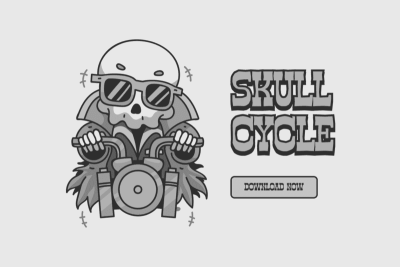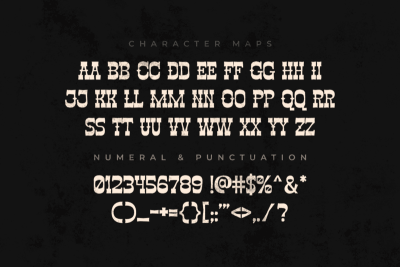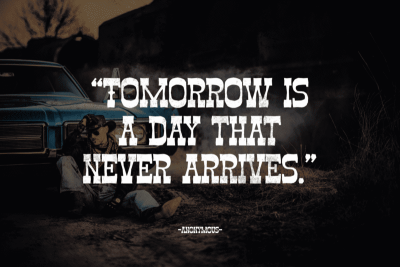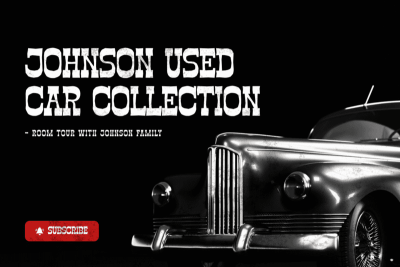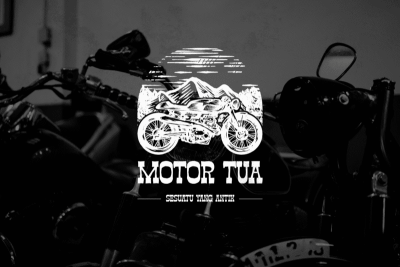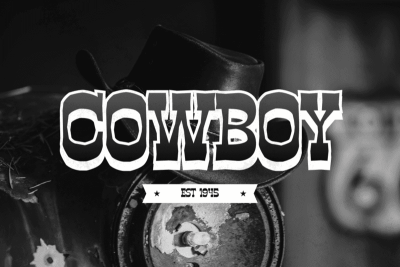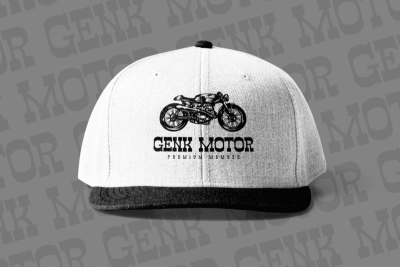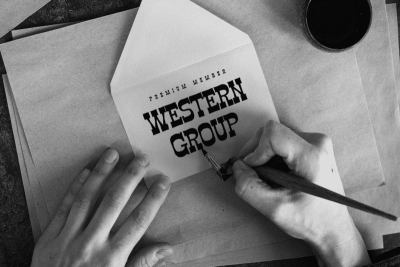
Retro Font The Django
The Django
Retro Font The Django is a modern font with a strong vintage influence. Inspired by the typography of the 1950s and 1960s, it perfectly blends nostalgic elements with contemporary design features. The font has clean lines, rounded serifs, and slightly condensed letterforms, making it versatile for various applications. Whether used for bold headlines or body text, Retro Font The Django brings a sense of elegance and personality to your designs.
This font captures the charm of mid-century typography while remaining fresh and modern. The rounded edges and sleek structure create a balanced and harmonious aesthetic. The font is works well in both print and digital environments, giving you flexibility across different media. Itโ€™s ideal for creating standout designs that need to evoke a sense of both style and fun.
The font is perfect for a range of design projects. Itโ€™s suitable for posters, branding, website headers, social media graphics, and more. Whether youโ€™re working on a retro-themed campaign or a modern project with a touch of nostalgia, Retro Font The Django offers the right mix of classic and contemporary style. Its versatility makes it an excellent choice for designers who want a font that can handle a variety of applications while maintaining a memorable visual impact.
Who is Retro Font The Django Ideal For?
Retro Font The Django is ideal for creative professionals who want to add character to their designs. Graphic designers, brand creators, and marketers can use this font to make their projects stand out. Itโ€™s particularly well-suited for industries like entertainment, fashion, music, and lifestyle, where vintage and retro styles are popular. The fontโ€™s ability to evoke nostalgia while keeping a modern edge makes it perfect for projects that need to appeal to a broad audience.
Content creators will also find Retro Font The Django useful. Whether youโ€™re a blogger, influencer, or website designer, this font can give your content a unique and bold look. Itโ€™s great for social media posts, event flyers, album covers, and other creative endeavors. The fontโ€™s distinctive design ensures your work grabs attention and leaves a lasting impression.
Overall, the font isย is a versatile, timeless choice for anyone looking to add a stylish, vintage-inspired touch to their projects. Its balance of modernity and nostalgia makes it a valuable asset for a wide range of creative work.